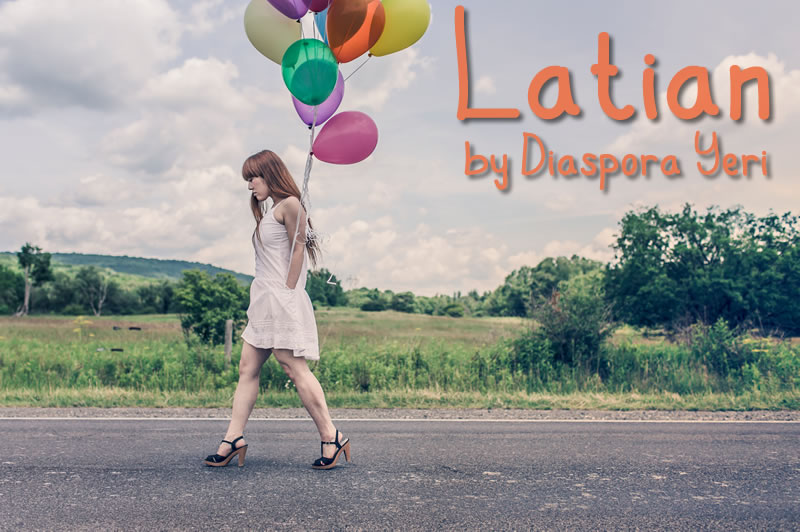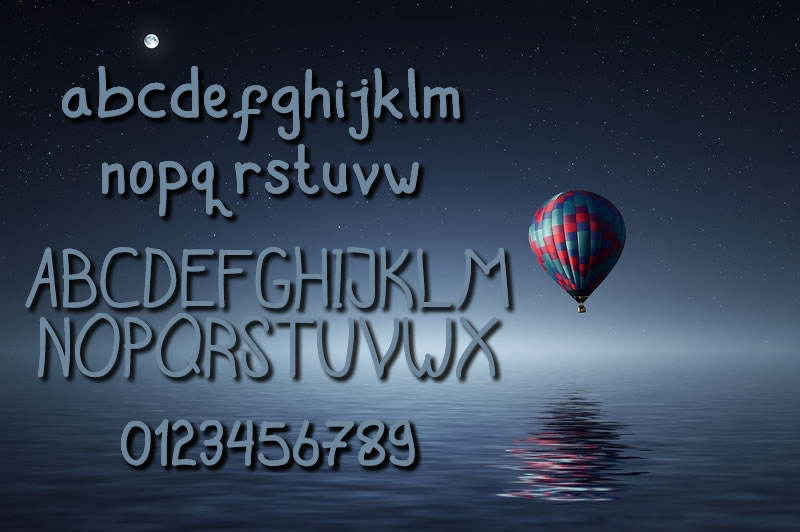
Latian Font
About Latian Font
Latian is a beautiful handwritten font created by Diaspora Yeri.
Each letter is carefully drawn and has a wobbly playful feel to it. Because of the clear-to-read letters, this font can be used for many purposes.